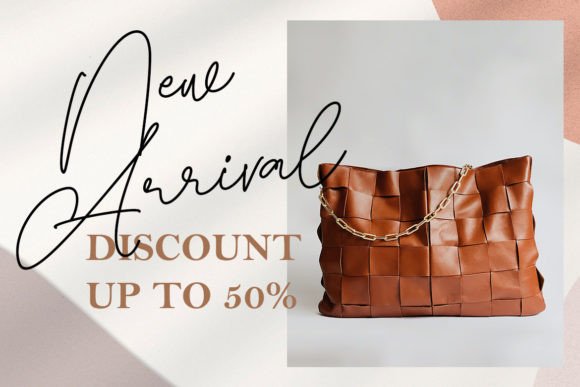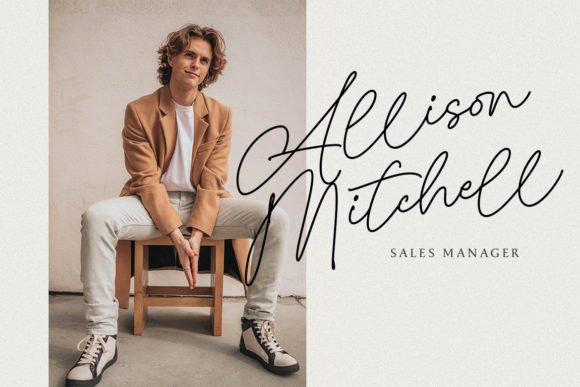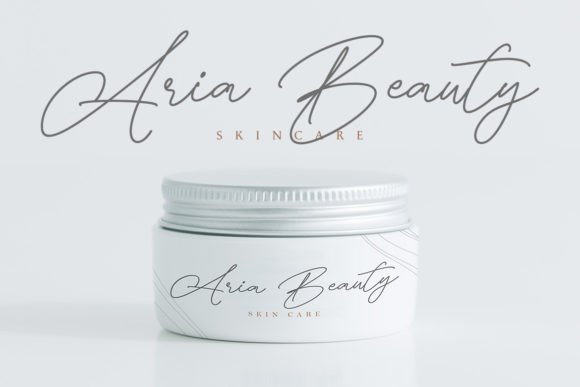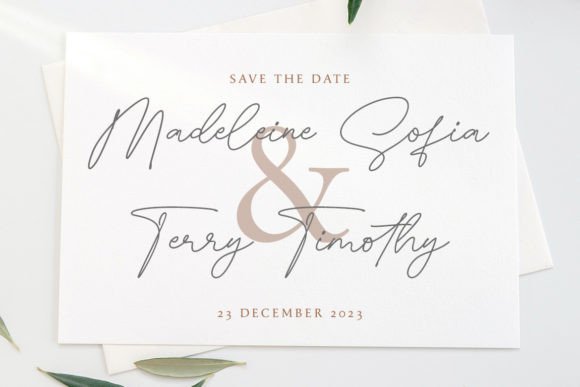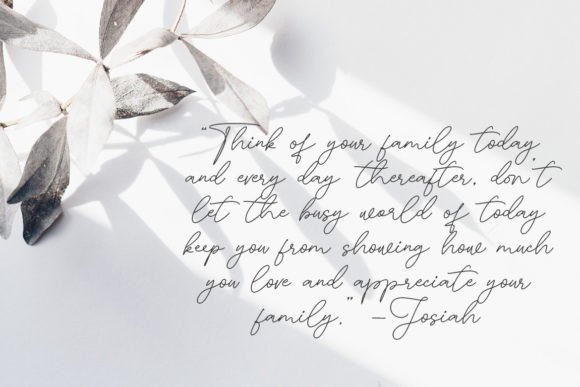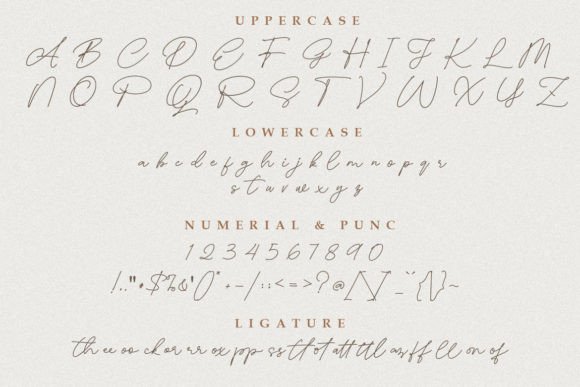
When Words Take Flight
Have you ever been in a moment where the words just flow effortlessly, and the page comes alive with your thoughts? That’s the magic of creating with the right tools. For designers, finding the perfect font can be the key to unlocking that special something in their work. And that’s where our Delicate Butterfly Font comes in – a beautiful blend of monoline script and handwriting styles that will make your designs shine.
With its consistent line weight and fluid strokes, Delicate Butterfly Font creates a seamless and refined look that’s both elegant and approachable. Whether you’re crafting a wedding invitation, a children’s book, or a brand identity, this font is sure to bring a touch of sophistication and whimsy to your work. For designers, it’s a valuable addition to their toolkit, offering endless possibilities for creative expression.
Delicate Butterfly Font Key Features
- Font Family: Delicate Butterfly Font is a beautiful script font that features elegant, cursive characters.
- Character Set: Includes 250+ characters, including uppercase and lowercase letters, numbers, and punctuation marks.
- Unique Characteristics: Features swashes, flourishes, and decorative elements that add a touch of whimsy and romance to any design.
Delicate Butterfly Font Review
Overall, I have mixed feelings about the Delicate Butterfly Font. Here’s what I like and dislike about it:
- The font’s whimsical and playful nature is perfect for designs that need a touch of elegance and sophistication.
- The delicate curves and flourishes add a sense of romance and femininity, making it ideal for wedding invitations, baby shower cards, and other related designs.
- The font is highly customizable, allowing users to adjust the size, color, and spacing to suit their needs.
- The font may not be suitable for designs that require a strong, bold, or modern look, as it can appear too delicate or weak.
- The font may not be easily readable in smaller sizes, which can be a concern for designs where text is a primary element.
- The font’s complexity can make it difficult to pair with other fonts, which may limit its versatility.
The Delicate Butterfly Font is a beautiful and unique font that can add a touch of magic to designs. While it has some limitations, it’s perfect for designs that need a delicate and whimsical touch. With some careful consideration and customization, it can be a great addition to any design project.
Delicate Butterfly Font is ideal for:
- Children’s book illustrations.
- Floral-themed designs.
For the best results, pair Delicate Butterfly Font with:
- Watercolor or hand-drawn illustrations.
- Soft, pastel color schemes.
- Whimsical or vintage-inspired designs.
Q: What is the recommended font size for the Delicate Butterfly Font?
The recommended font size for the Delicate Butterfly Font varies depending on the intended use. For body text, we recommend using a font size between 12 and 14 points. For headings and titles, you can use larger font sizes, such as 24 to 36 points, to create visual hierarchy and emphasis.